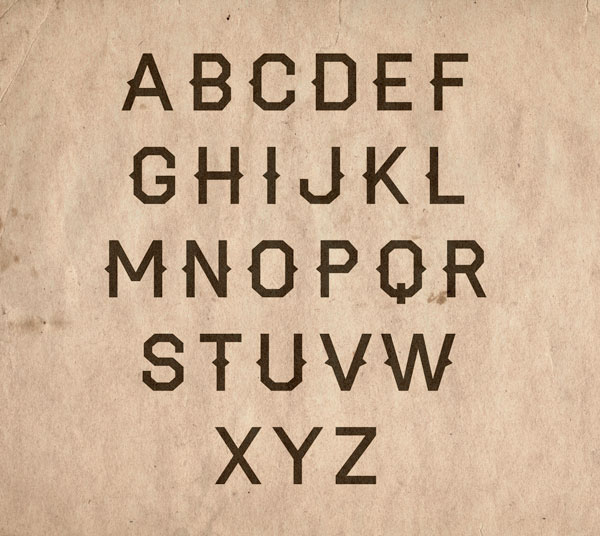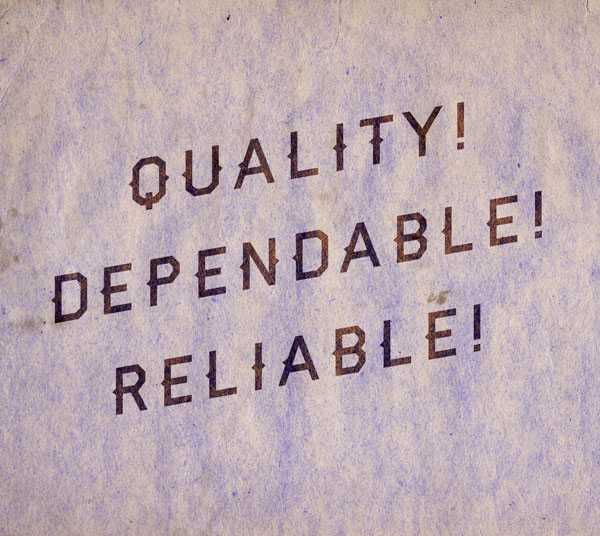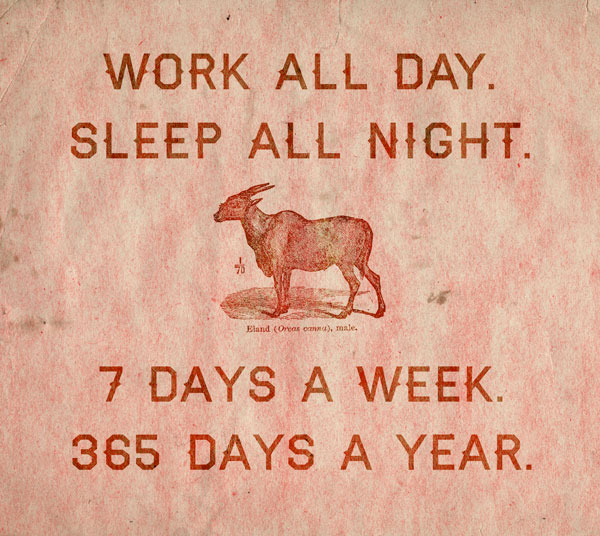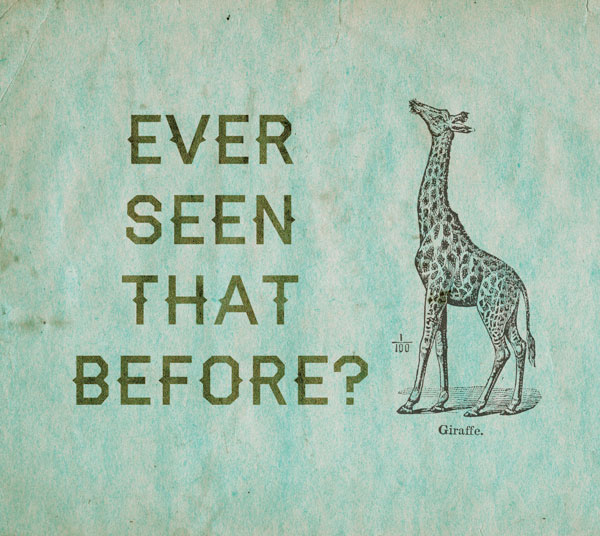
Haymaker
Make Hay While the Sun Shines.
A display typeface that's both rugged and refined. Inspired by the workmanship, lettering, and baseball jerseys of the 1930's and 40's.
Designed by
Trevor Baum